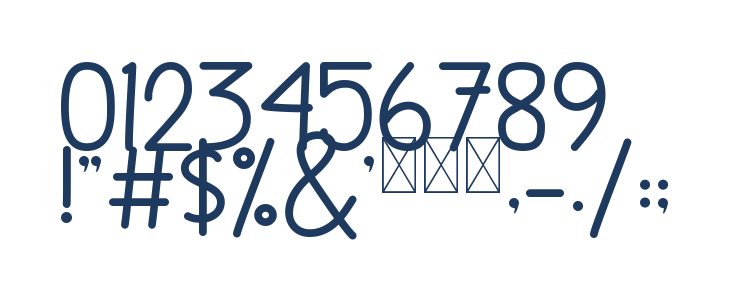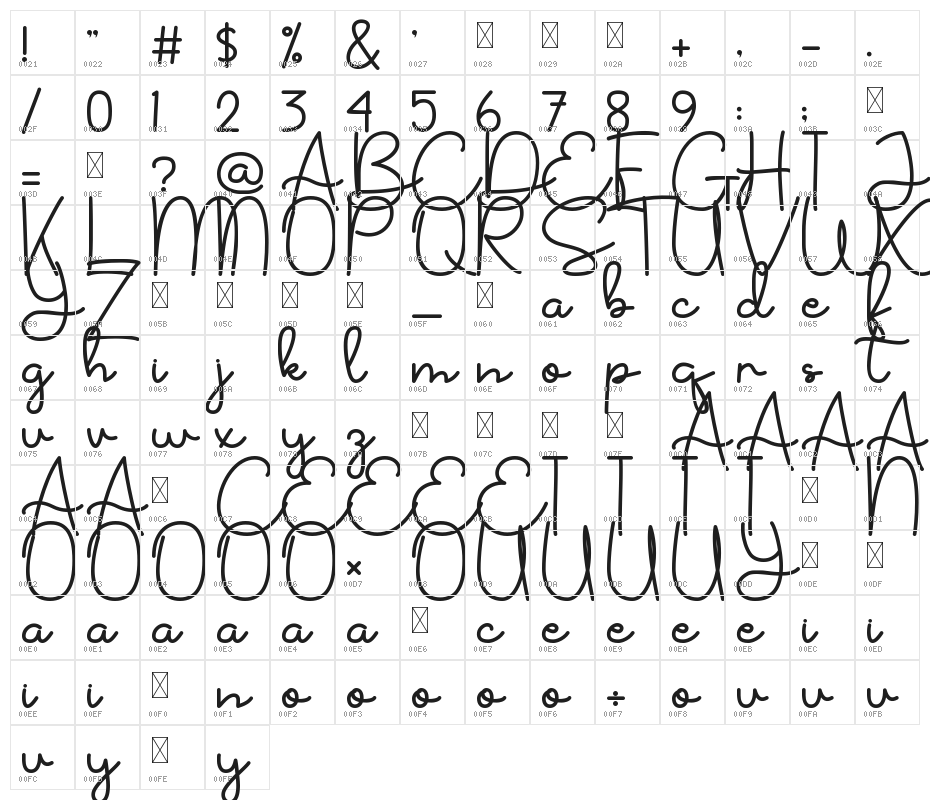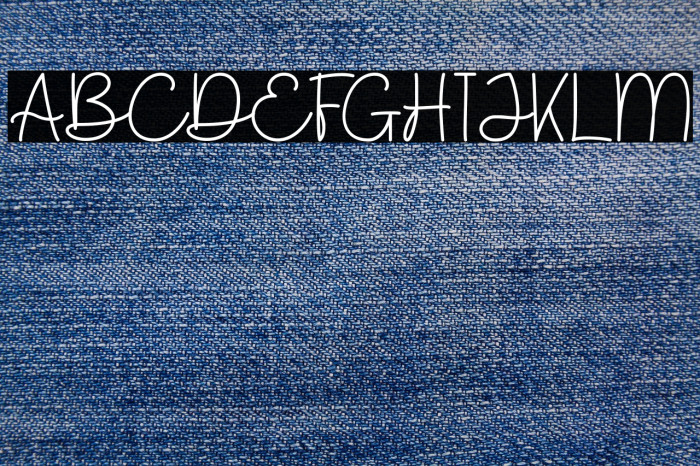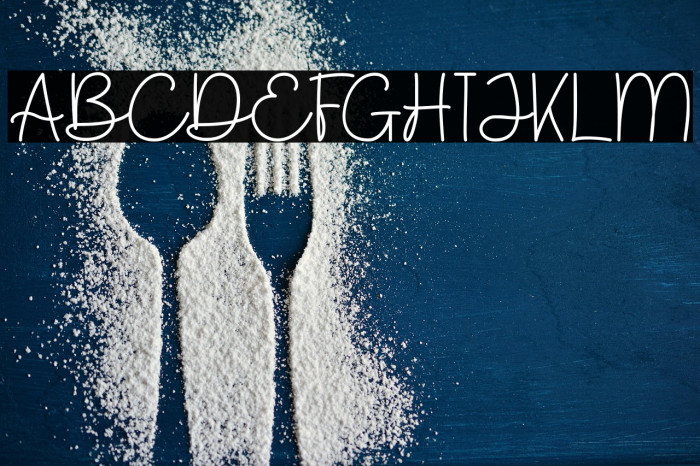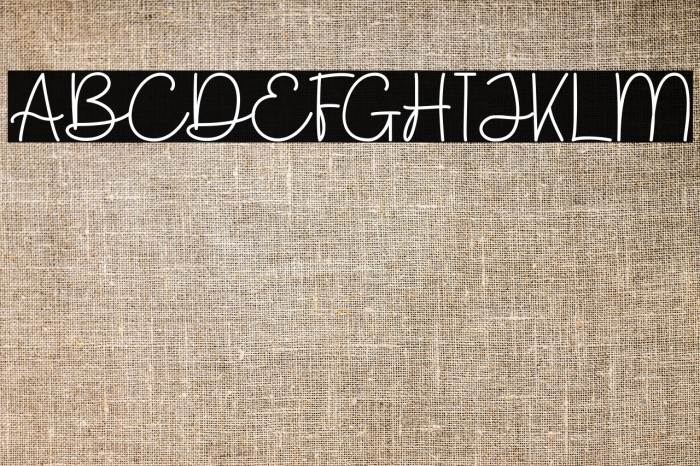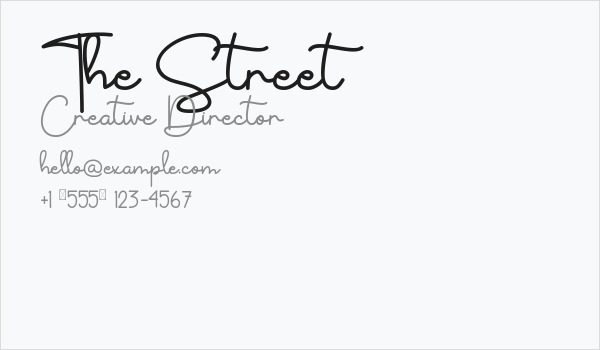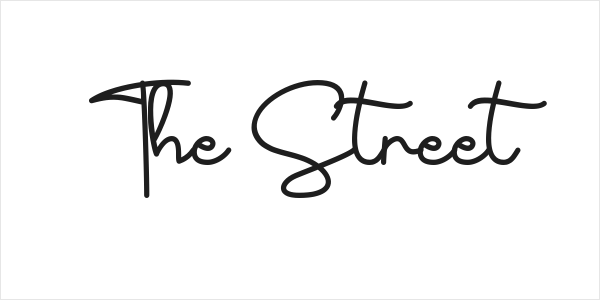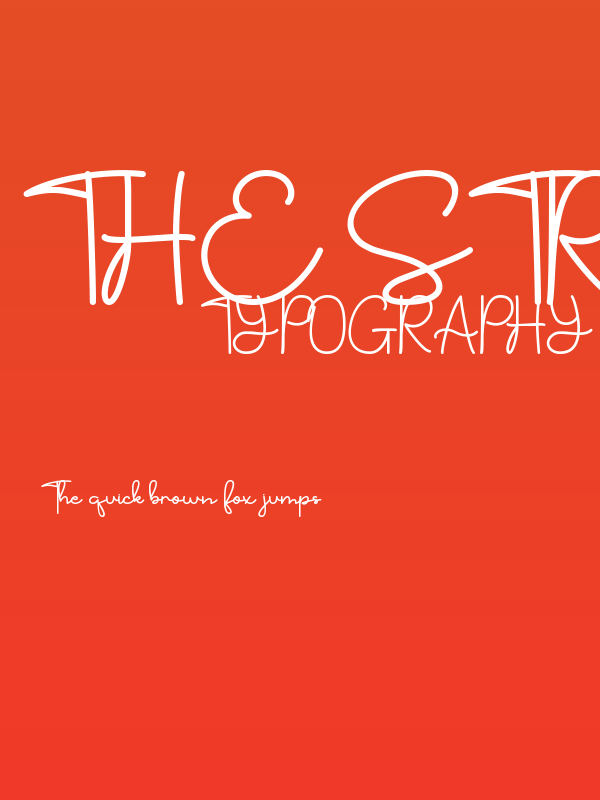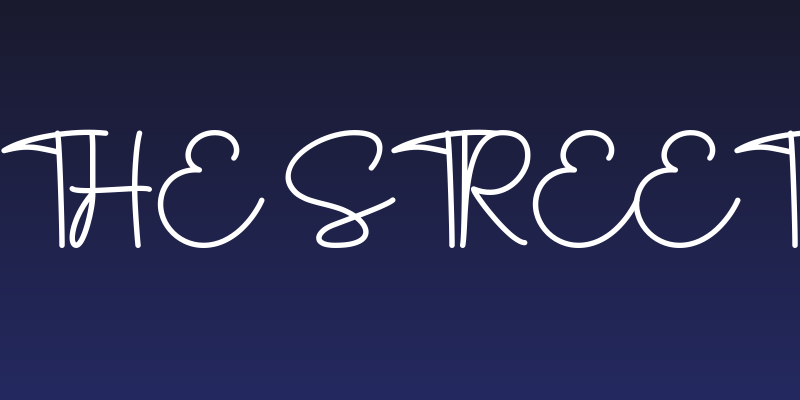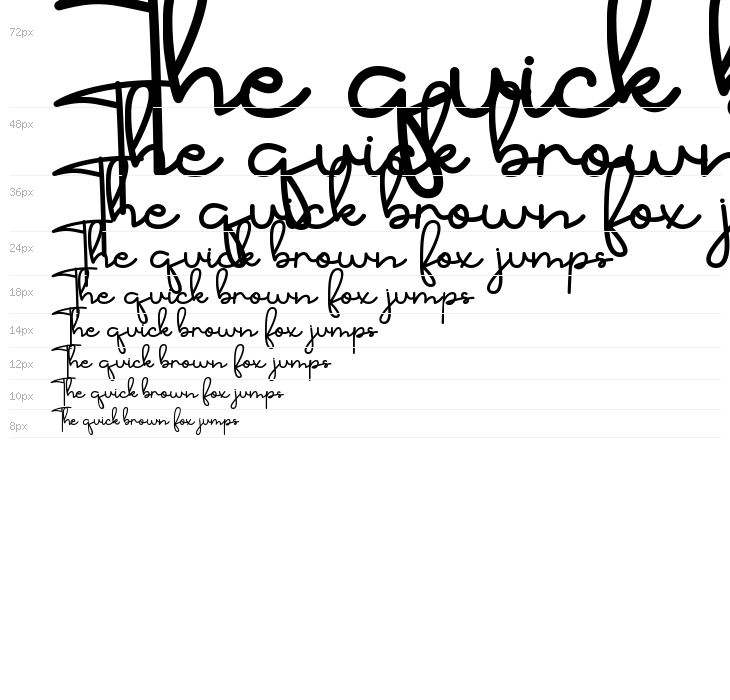
The Street Font
The Street Description
This font features a playful and casual handwritten style, combining both uppercase and lowercase letters with a smooth, flowing script. The uppercase letters are characterized by their tall, narrow forms with slight curves, giving them a whimsical appearance. The lowercase letters are more connected, resembling cursive handwriting, which adds a personal touch. The numerals are bold and rounded, maintaining the playful aesthetic. Special characters are included, matching the overall style with consistent line thickness and curvature. This font exudes a friendly and approachable vibe, making it suitable for creative and informal projects.